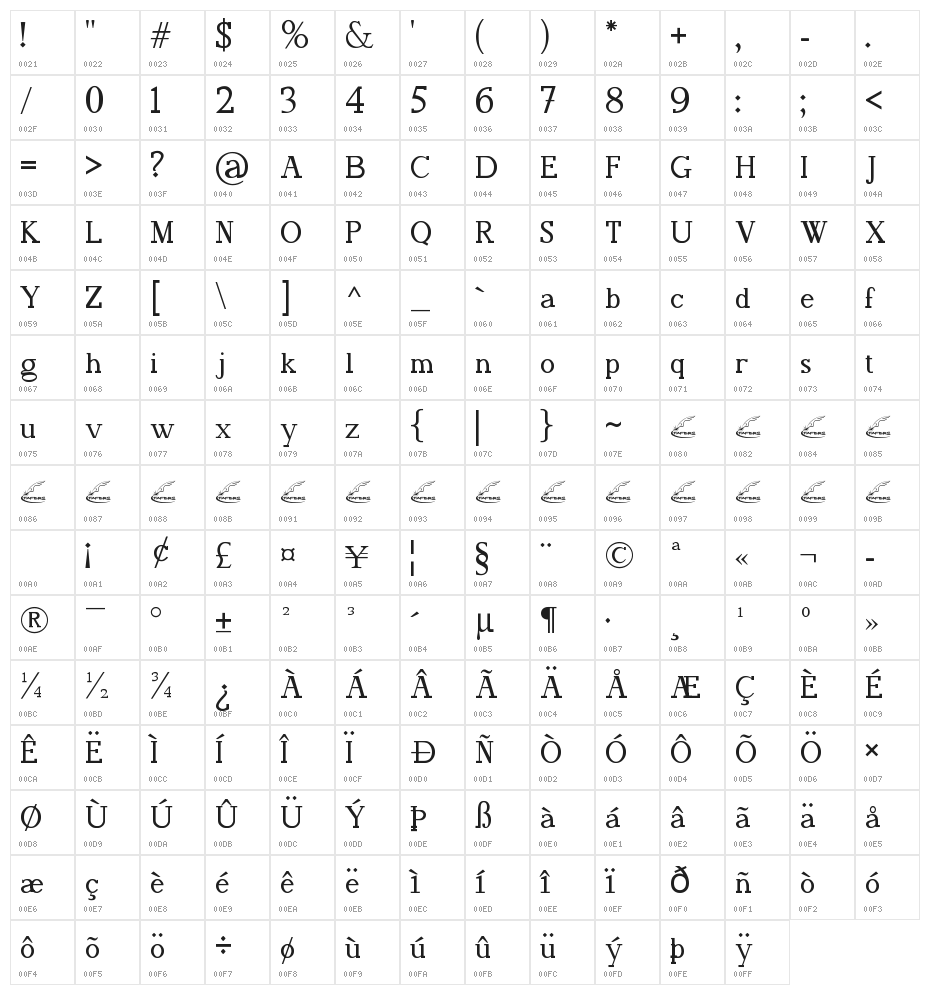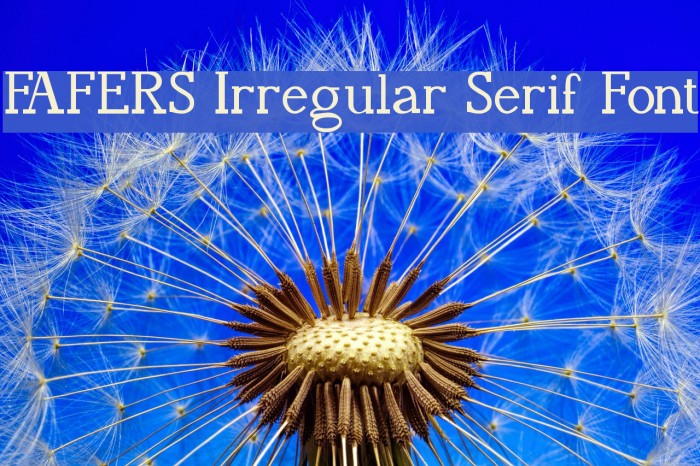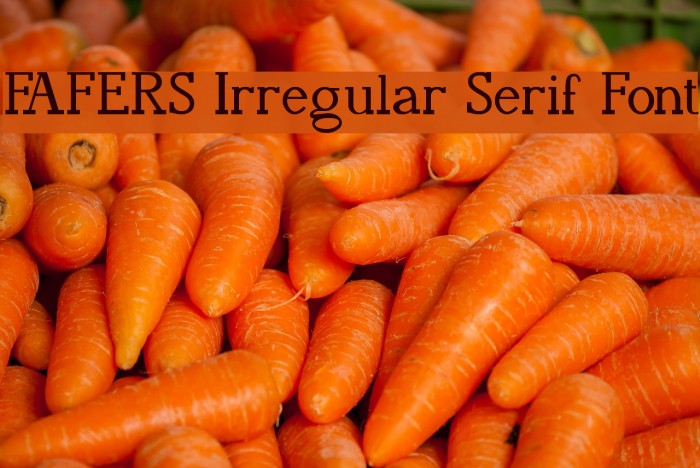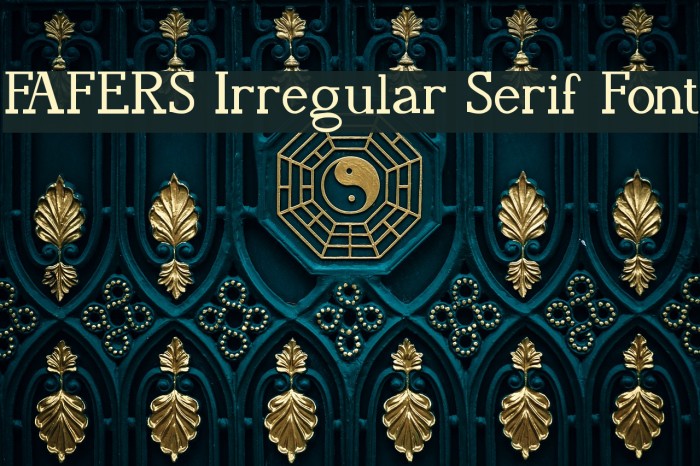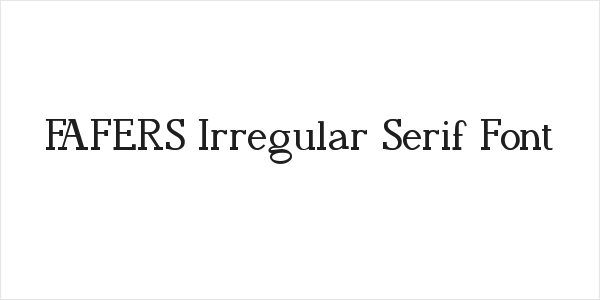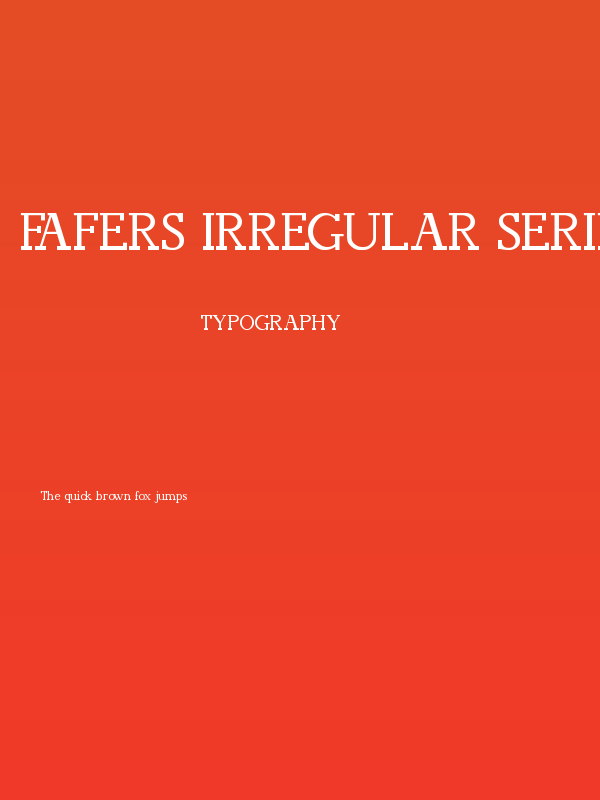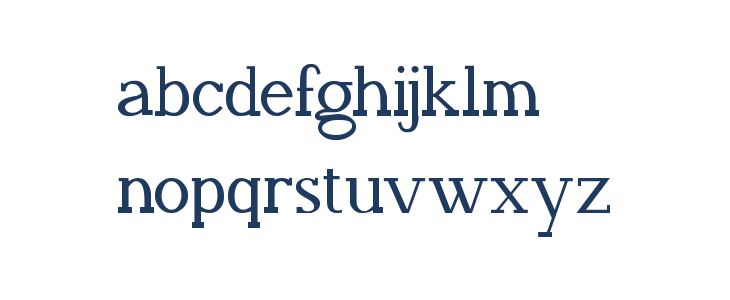
FAFERS Irregular Serif Font Font
FAFERS Irregular Serif Font Description
This font features a classic serif style with a touch of irregularity that adds character and uniqueness. The uppercase letters are bold and prominent, while the lowercase letters maintain a consistent flow with slightly exaggerated serifs. The numerals are clear and well-defined, making them easily readable. Special characters are designed with a similar attention to detail, ensuring they complement the overall aesthetic. The font's irregularities give it a handcrafted feel, making it stand out in both digital and print formats.
| Use Case | Headlines, Logos, Editorial Design |
| Proposed Projects | Ideal for editorial design, book covers, branding projects, and any creative work that requires a touch of elegance and uniqueness. |